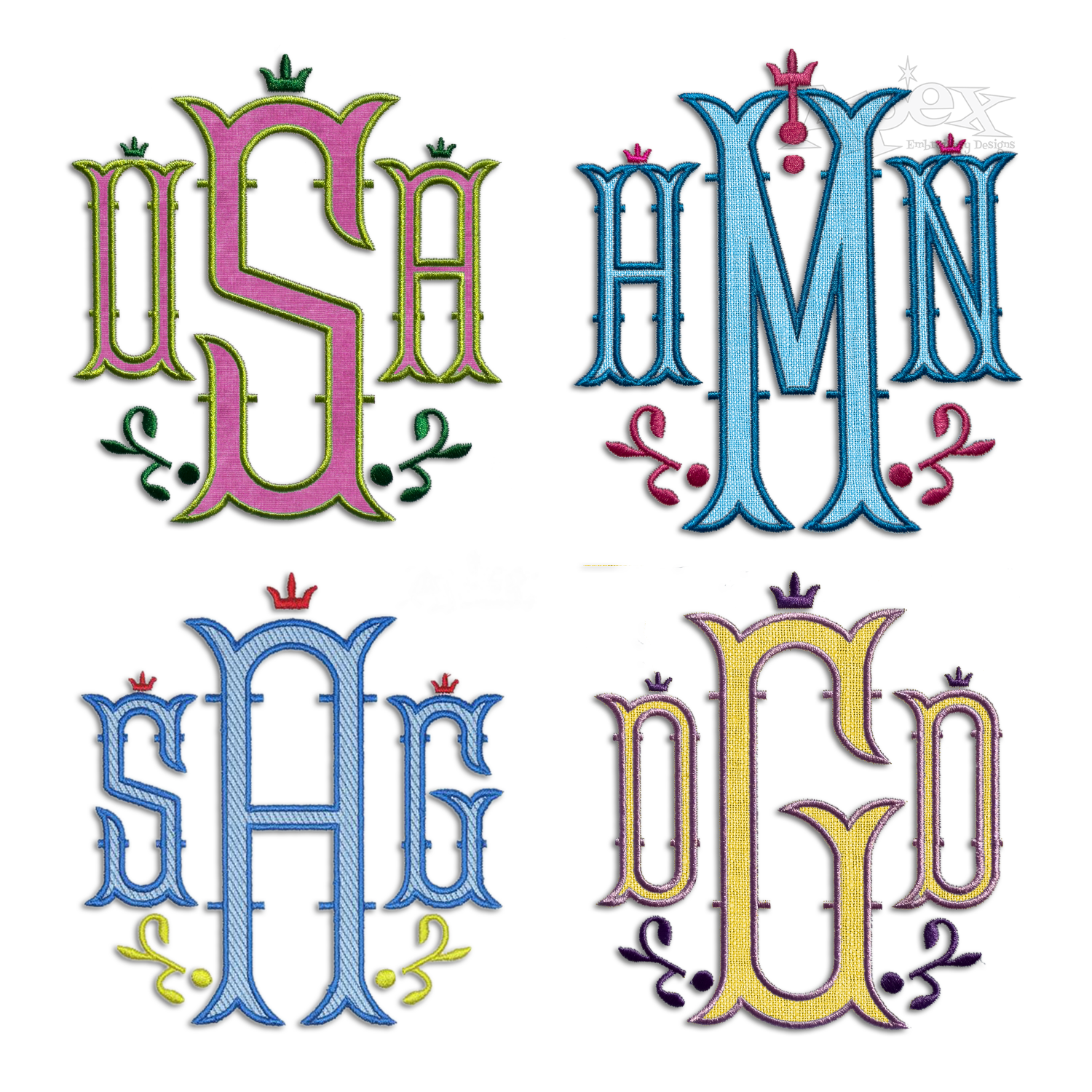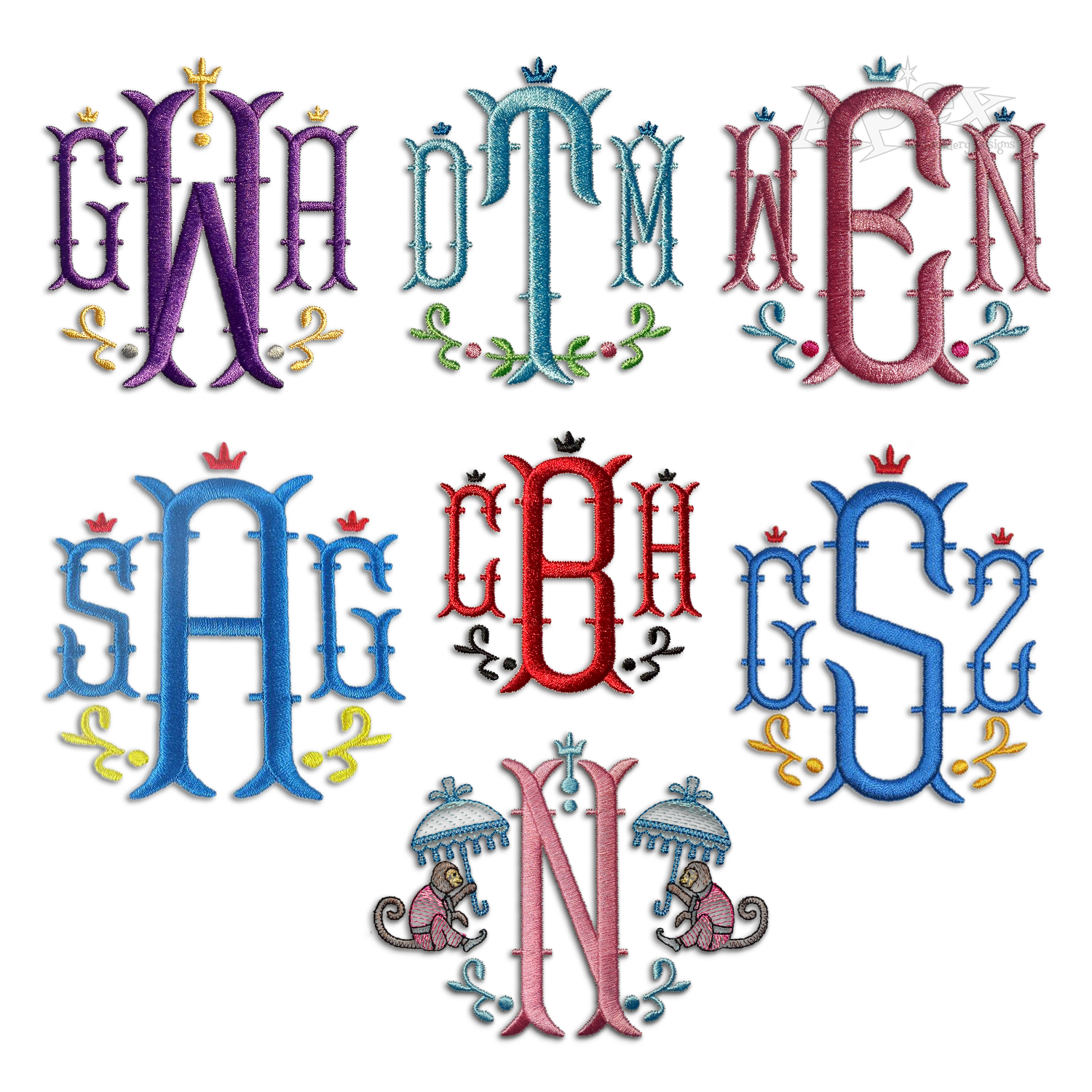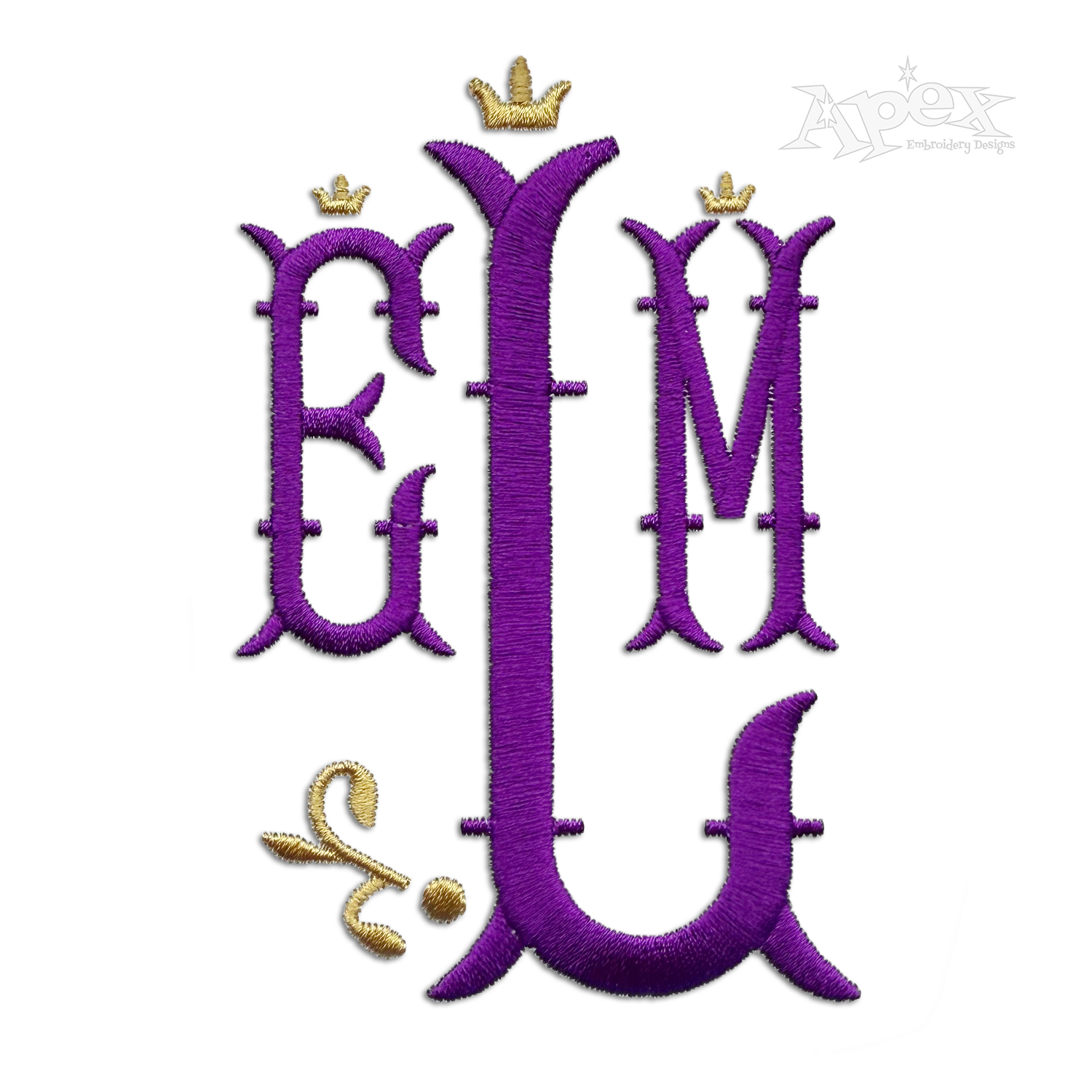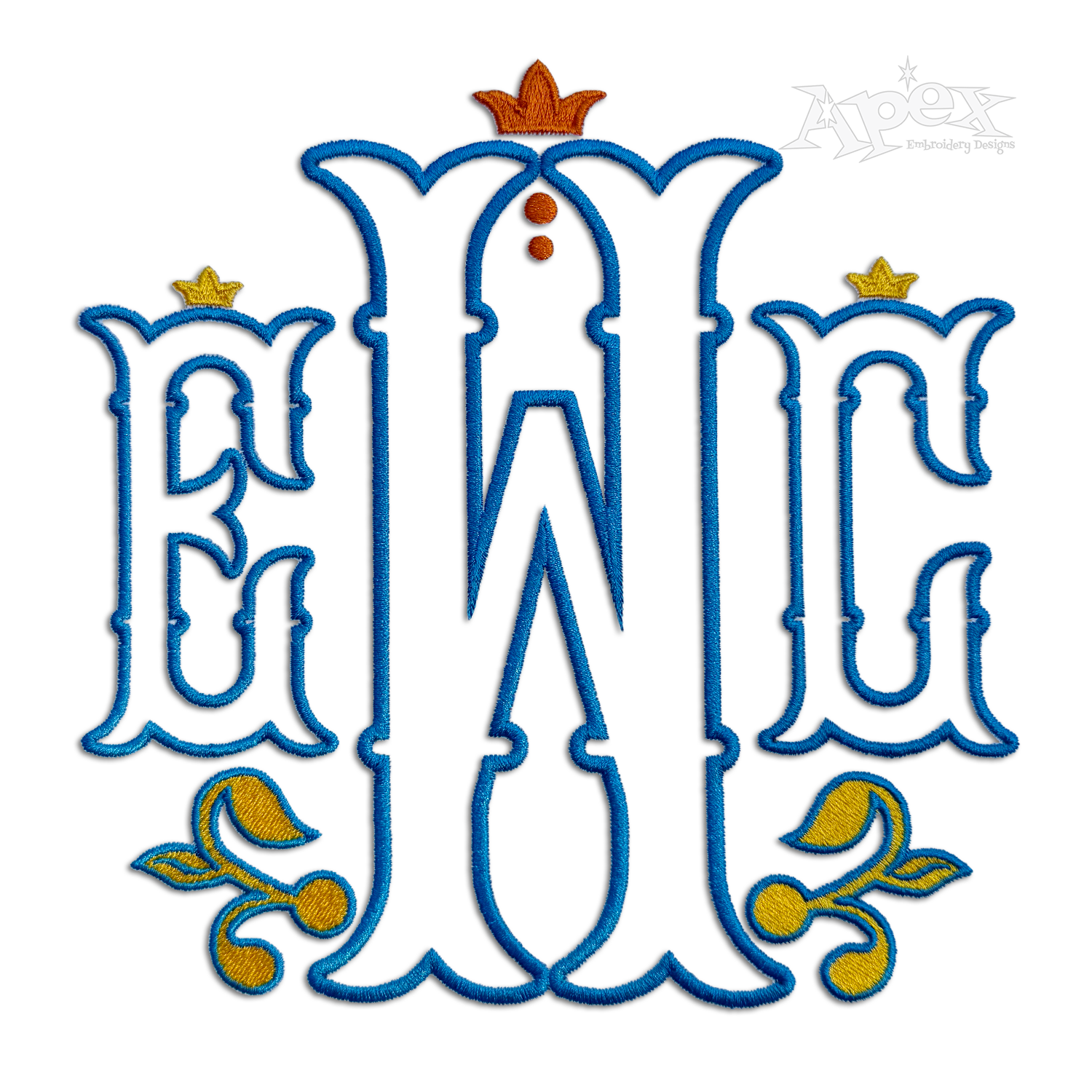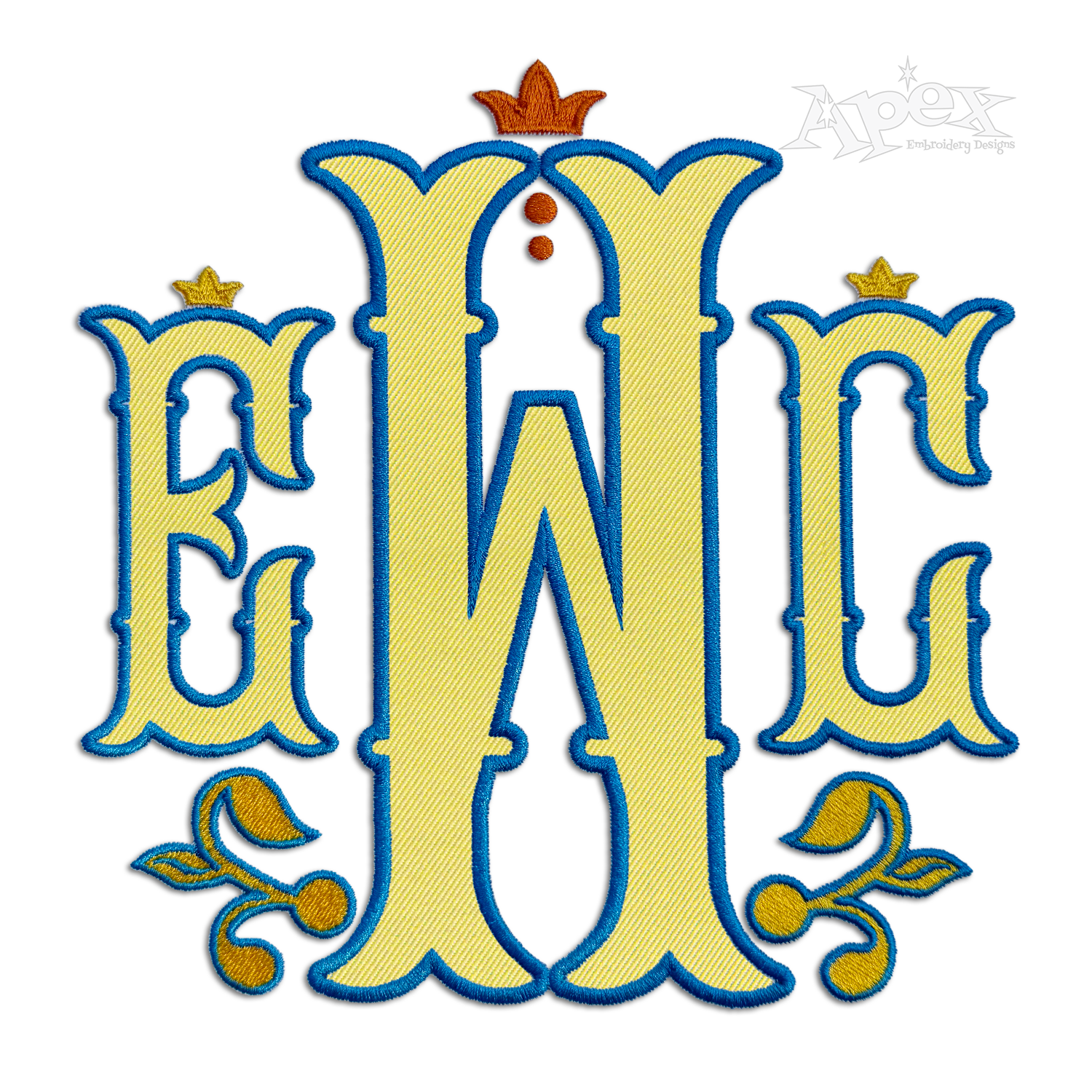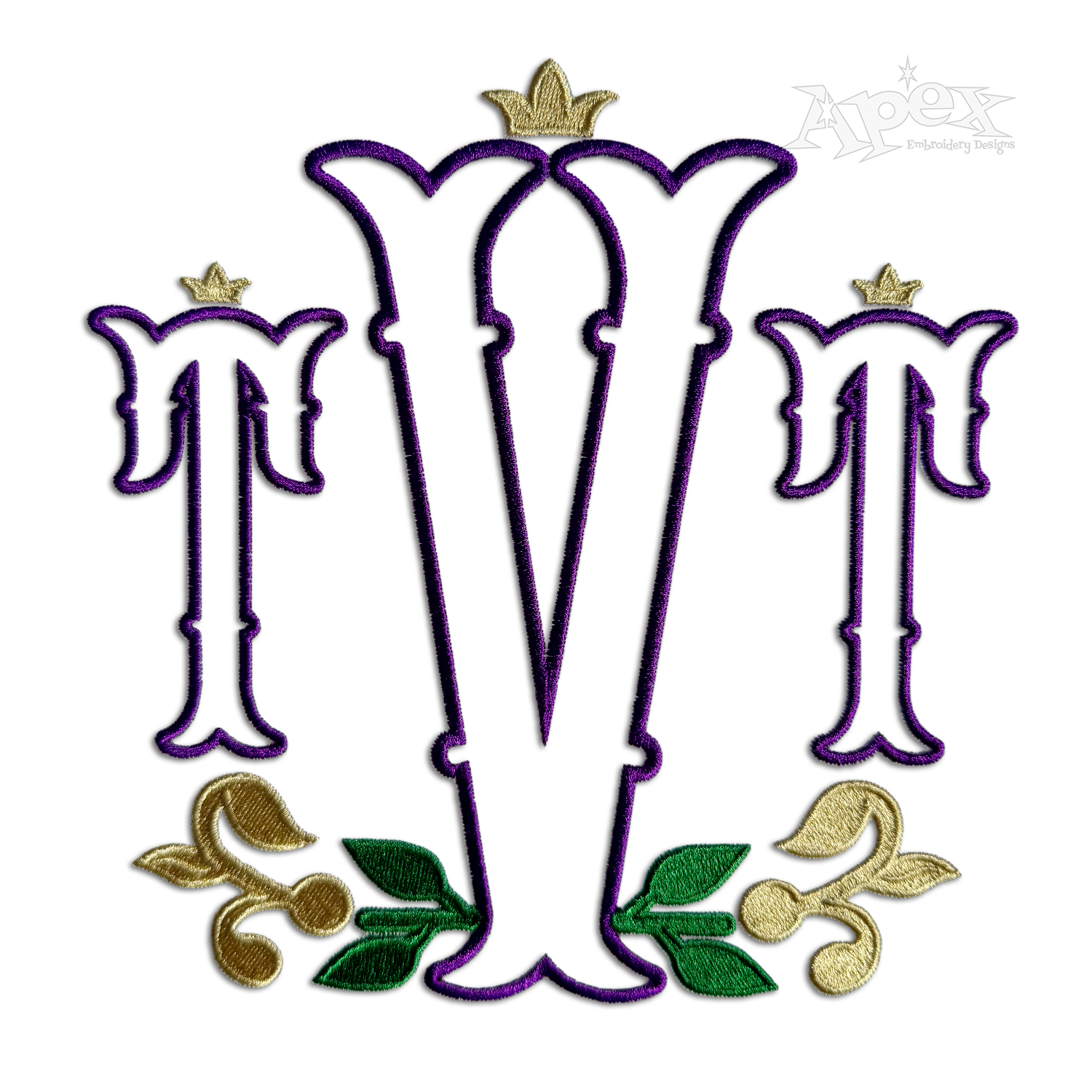
Fat Nola Applique Monogram Embroidery Font
Create Royal French style personalized gifts and home décor with Fat Nola font . Fancy Crown Queen Nola old world Monogram Embroidery Font. New Orleans Fat Nola Monogram Featuring a classic with Europe Regal stylish 3-color embroidery monogram set is perfect for customizing hats, linens, towels, baby gifts, tote bags, and more.
- Fat Nola French Monogram Font
- Perfect for 3-Letter Monograms
- Custom Home Décor Projects